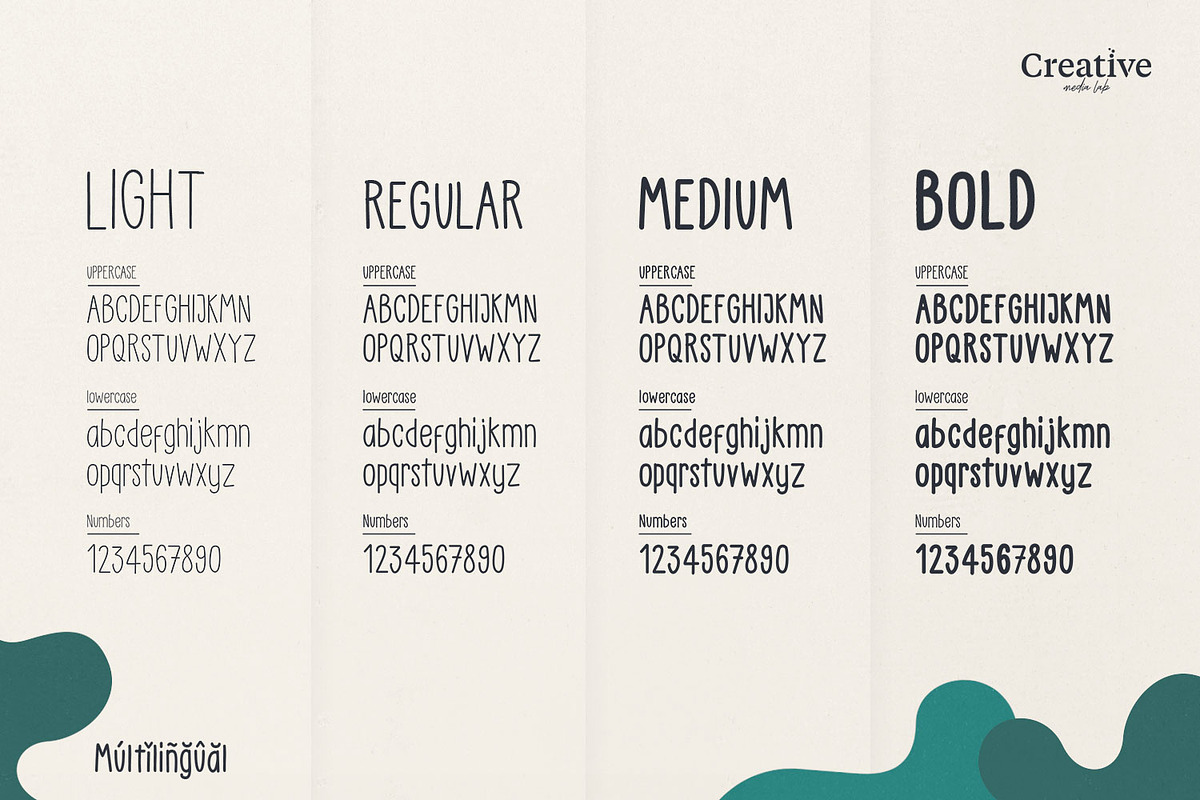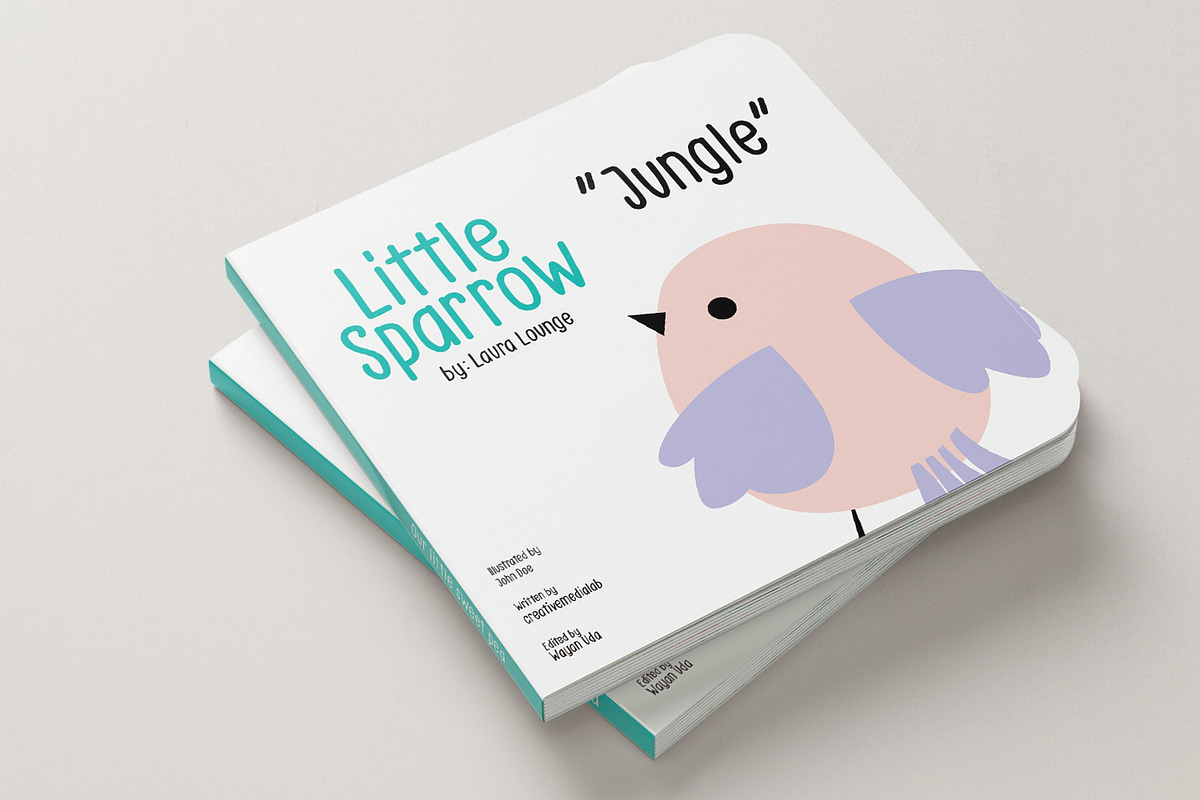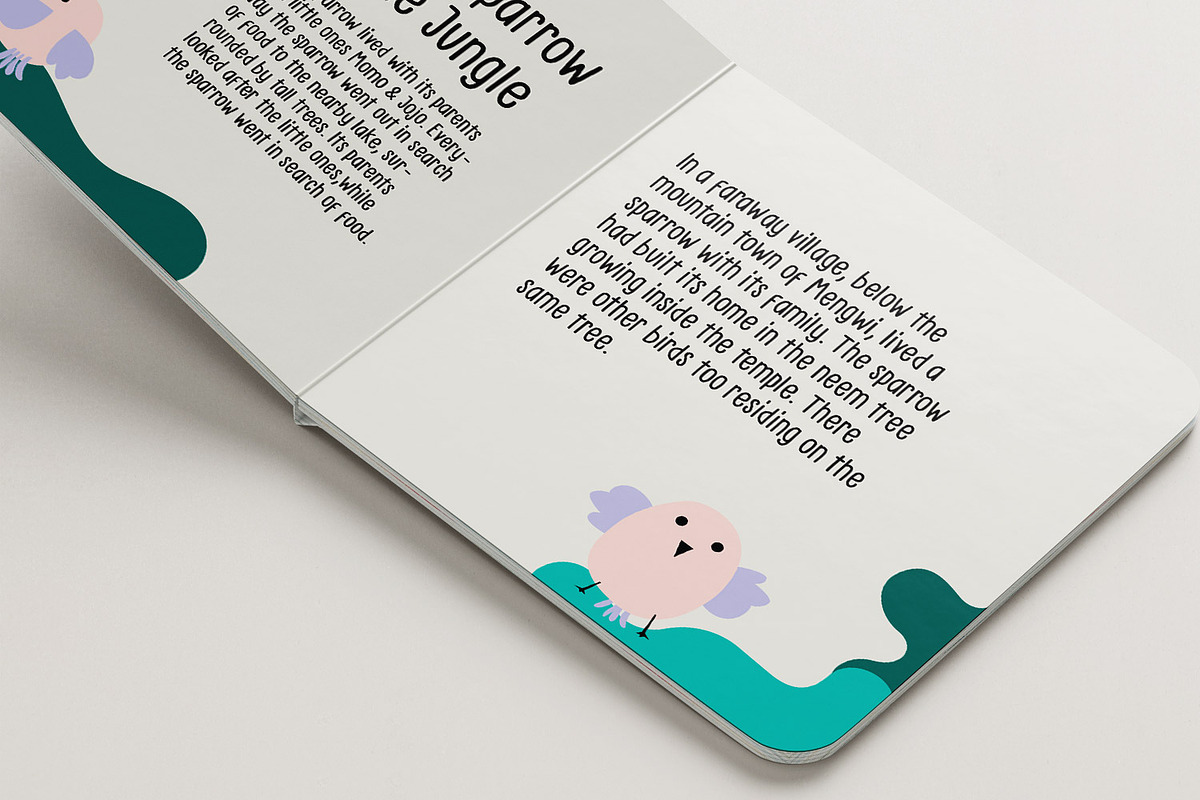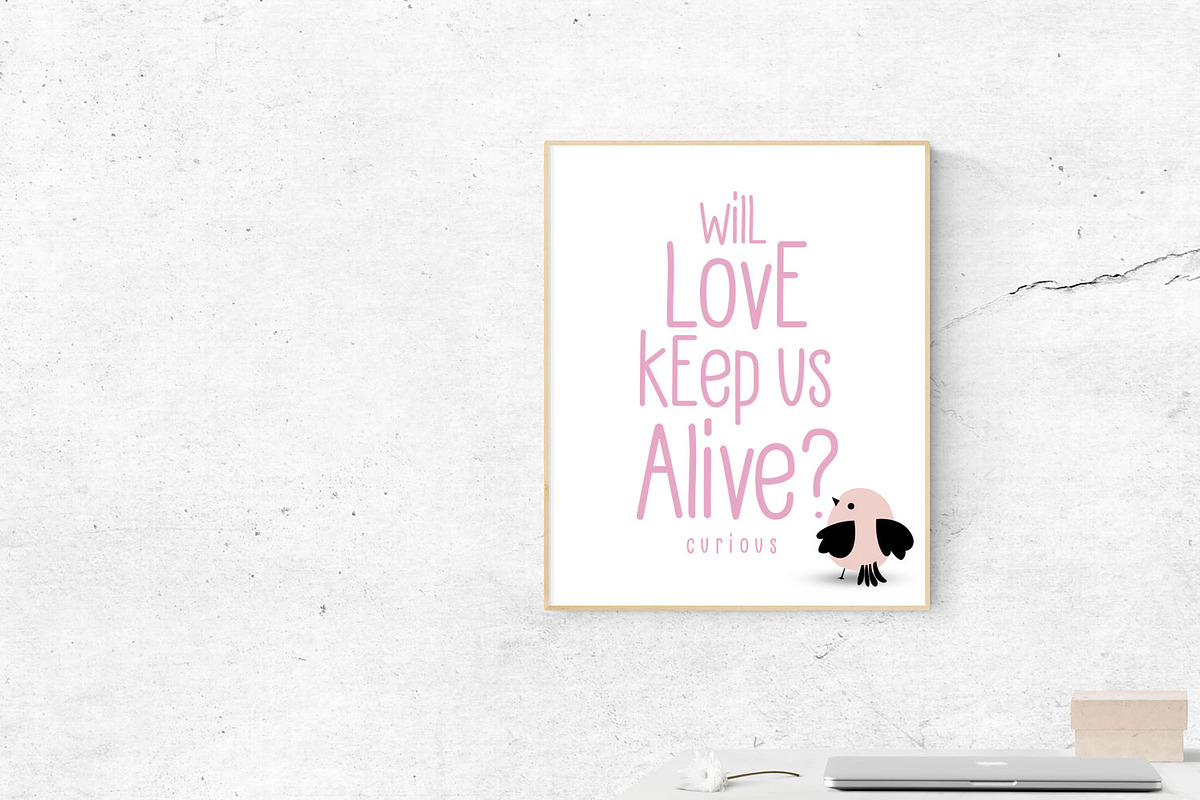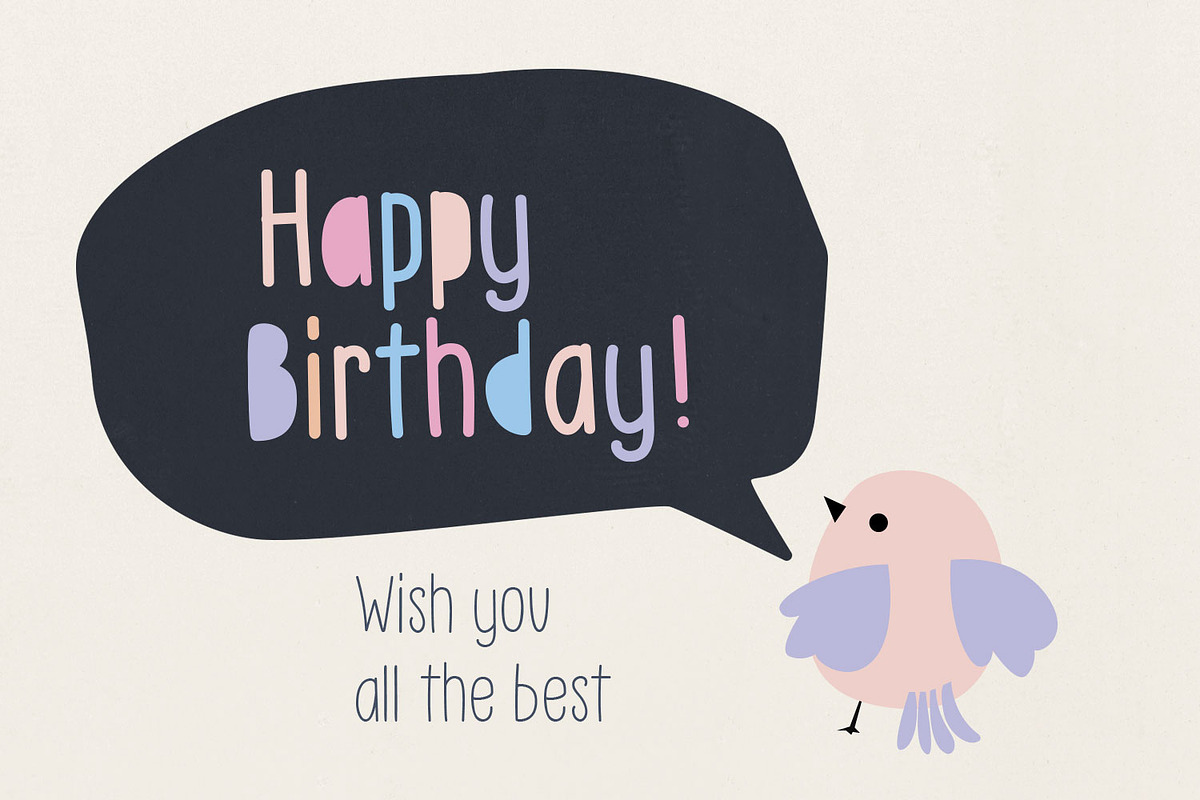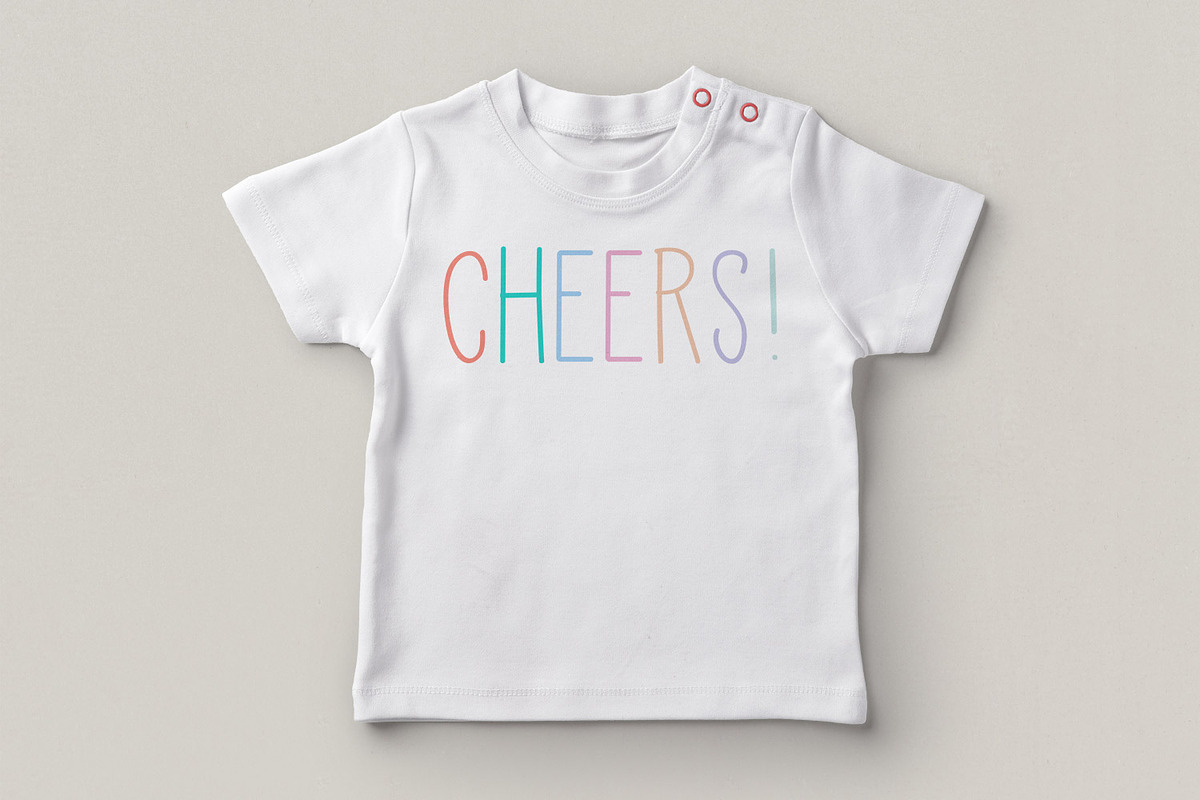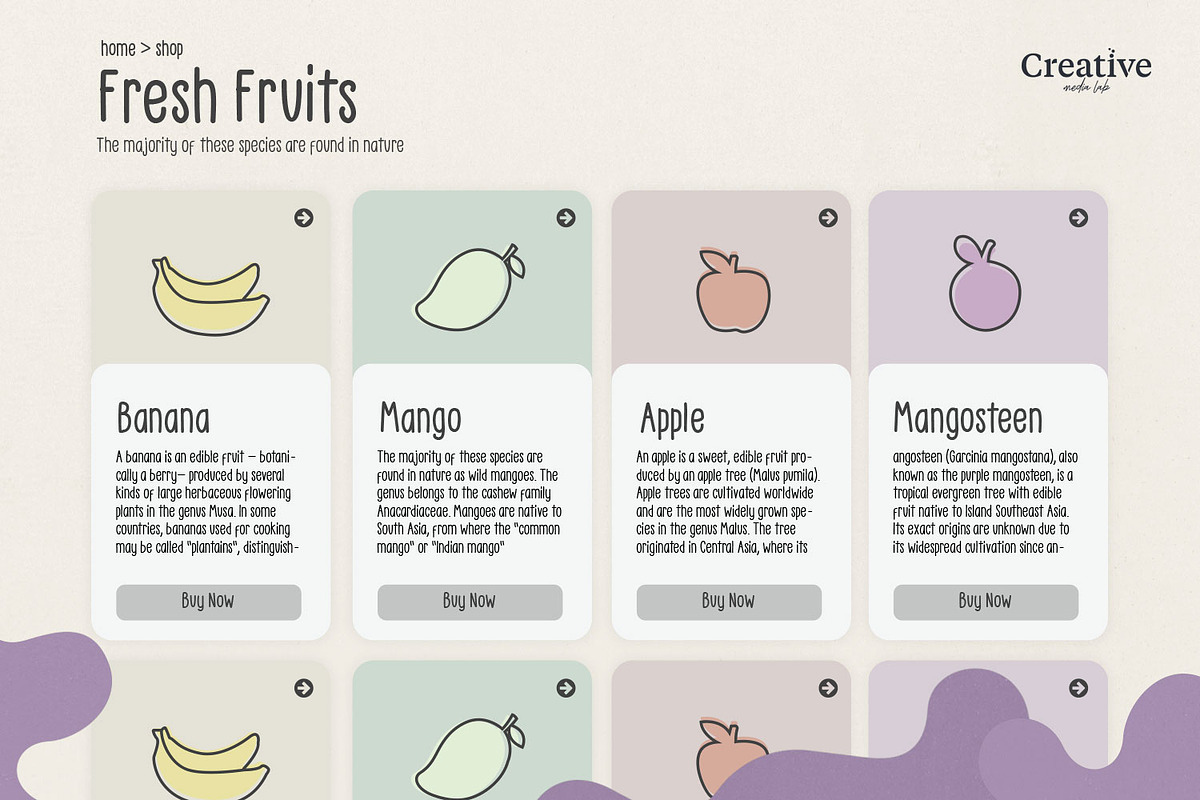
Little Pea - Handwritten Font
is a cute little handwritten font that would be perfect for Comic, books, greeting cards, toys, posters, baby clothing, picture books or anything that requires a fun and happiness look!
comes with four weights:
this font will make your design looks great and fun!
- comes with four weights: light regular medium bold this font will make your design looks great and fun!